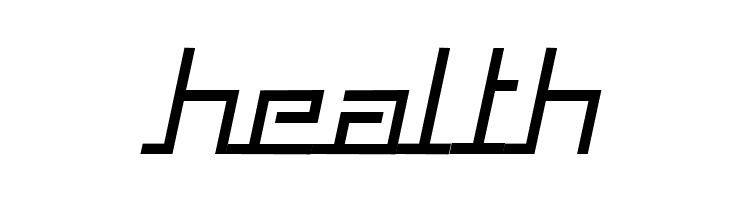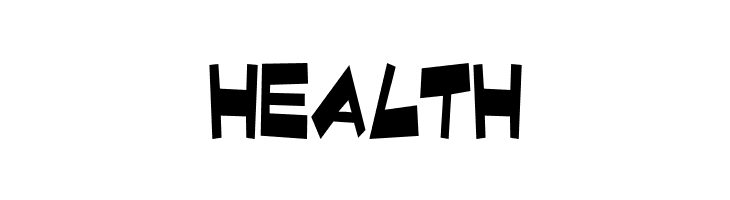
A futuristic, angular italic font with bold weight and expanded width.
A bold, geometric font with a digital, pixelated style and extended width.
A bold, angular, and geometric font with a condensed width and dynamic style.
A bold, dynamic font with playful distortions and varying stroke widths.